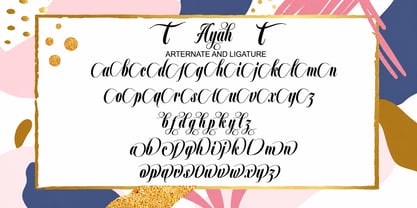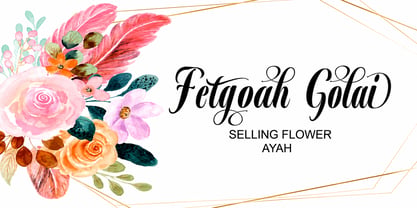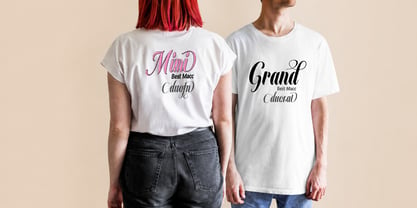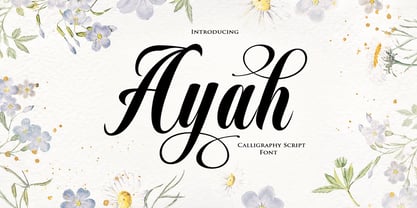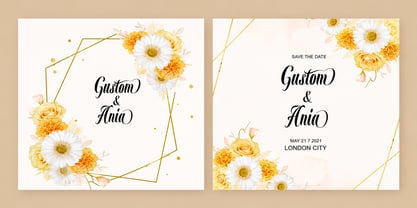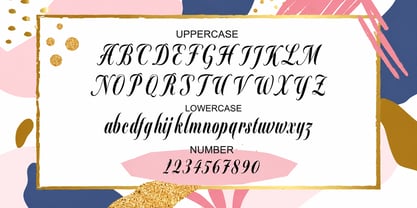
Ayah
by Abbastype
The Ayah Font Family was designed by Muhammad Abbas and published by Abbastype. Ayah contains 30 styles and family package options. More about this family
A stylish modern script font that showcases elegant flowing strokes and smooth curves, offering a contemporary handwritten feel. This font is designed to infuse a sophisticated yet personal touch into various applications, including branding, logos, invitations, social media graphics, packaging, quotes, and creative projects. Its graceful letterforms blend modern elegance with a natural handwritten character, making it an ideal choice for both digital and print designs. With multiple weights and OpenType features, this font enhances versatility and creativity in your design endeavors.
Designers: Muhammad Abbas
Foundry: Abbastype